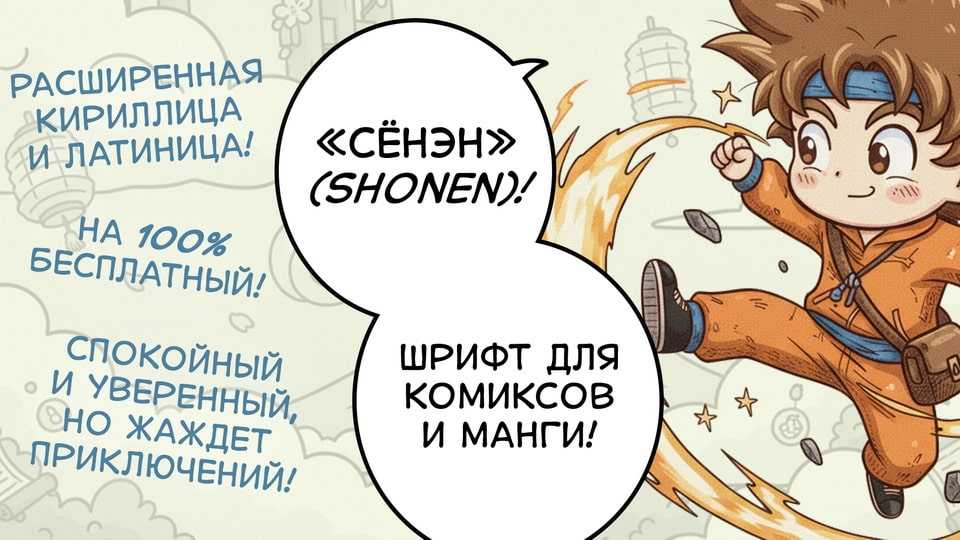
Download Shonen font, a lively comic typeface inspired by manga and shōnen storytelling, where action, emotion, and adventure come together. With extended Cyrillic and Latin support, Shonen is a versatile choice for illustrators, comic artists, and designers.